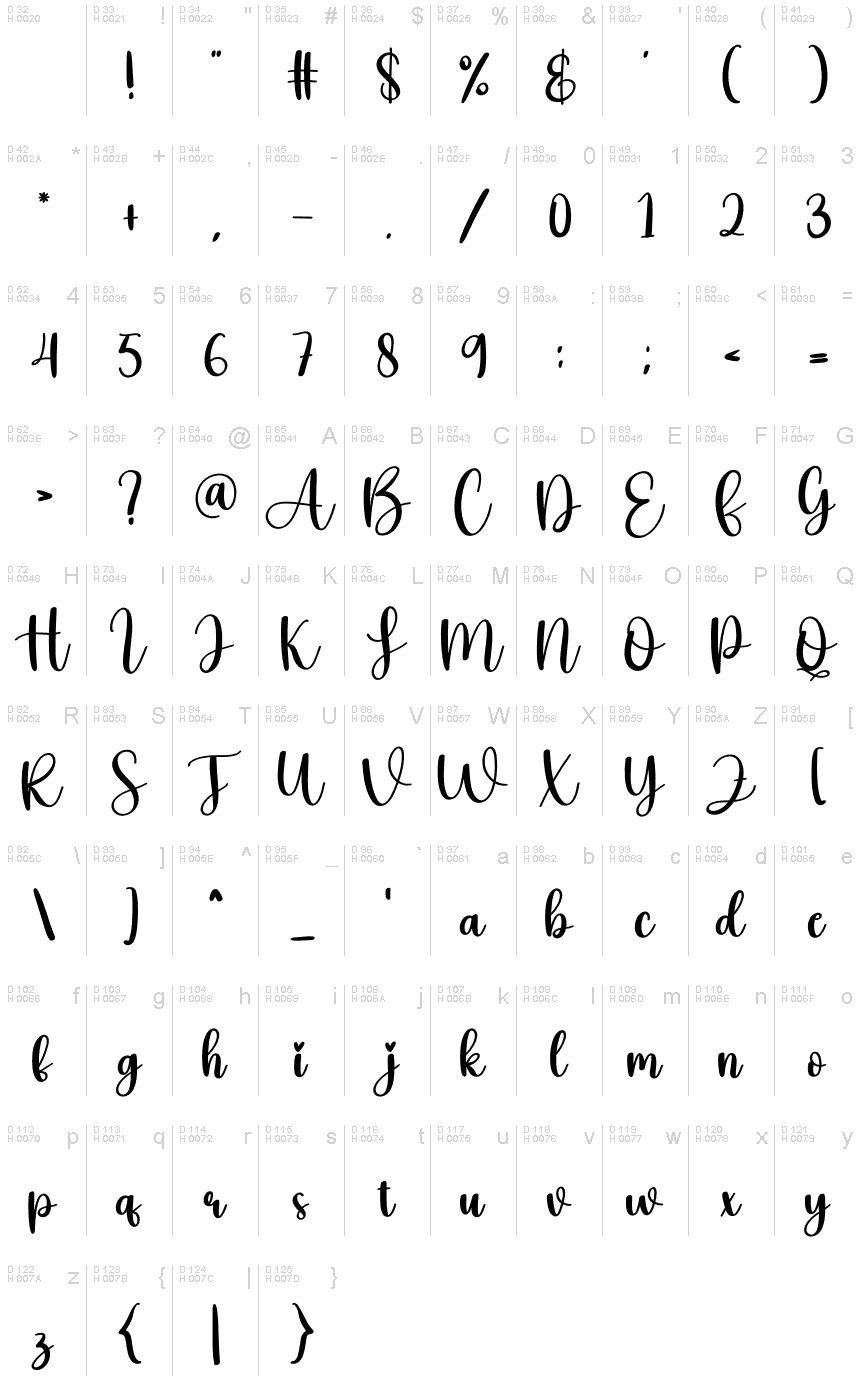
Tattoo
Tattoo font, designed by Scratchones, encapsulates a captivating calligraphy style. With its intricate and flowing strokes, this font exudes a tattoo vibe that adds an edgy and artistic touch to any project. Perfectly suitable for branding designs, this unique typeface conveys individuality and rebellion.
Whether it's a logo for a rock band or a poster for an underground art exhibition, Tattoo font makes a bold statement that demands attention. Its versatility allows it to shine in various creative projects like tattoo parlor signage or even album covers for alternative music genres.